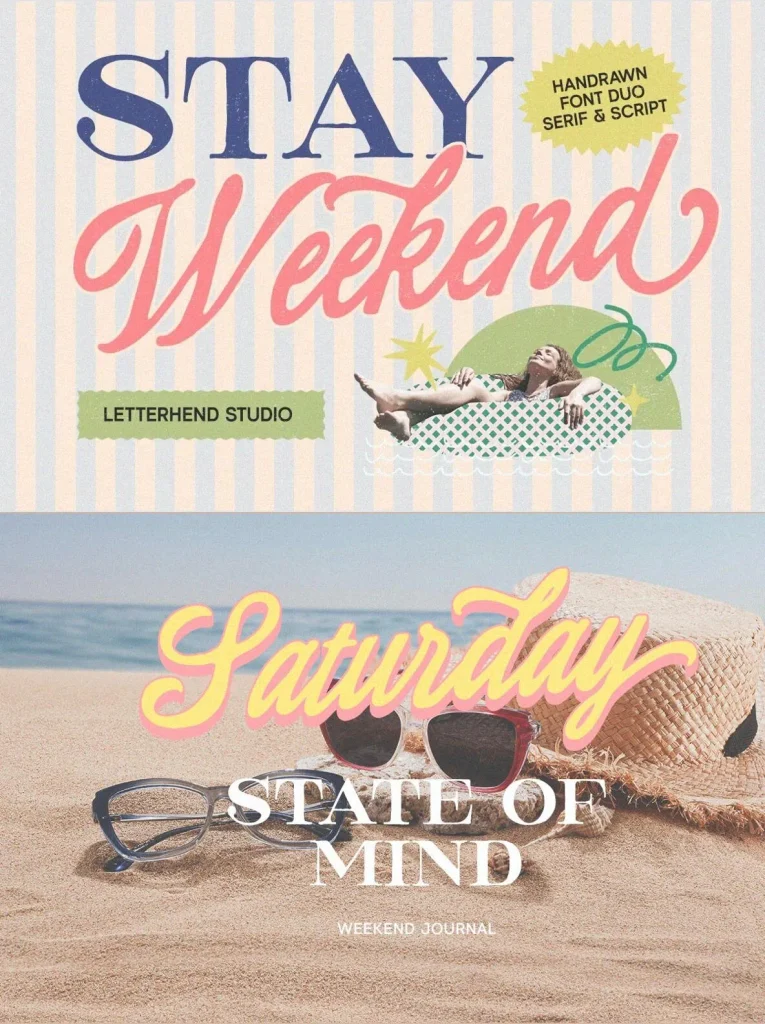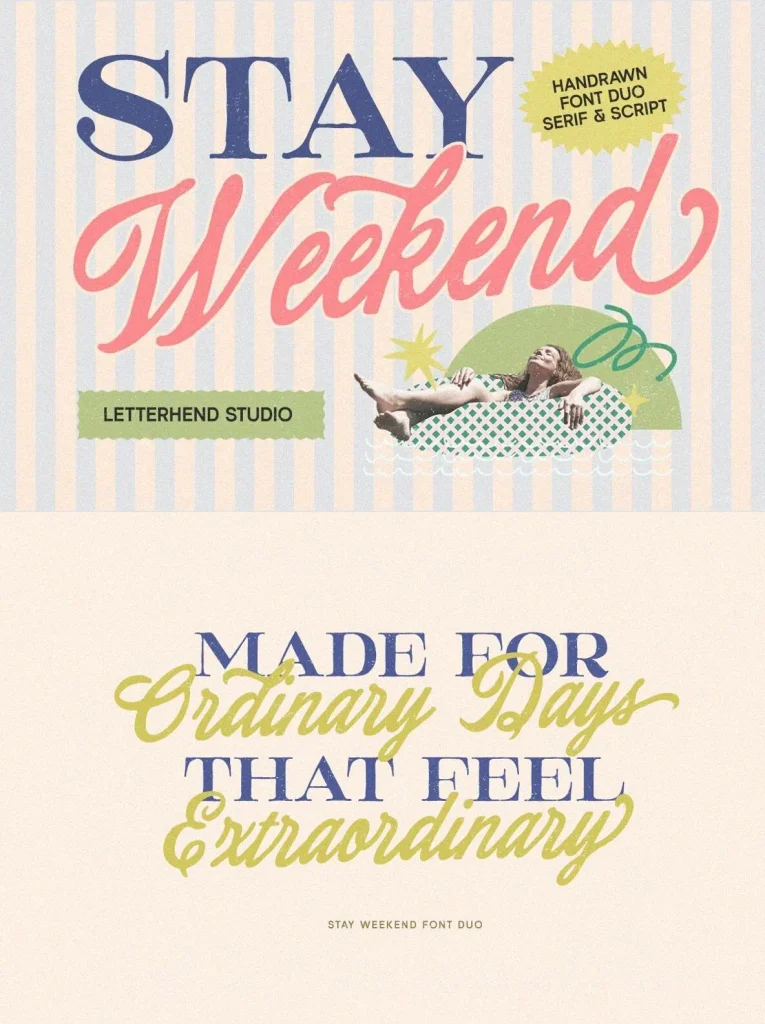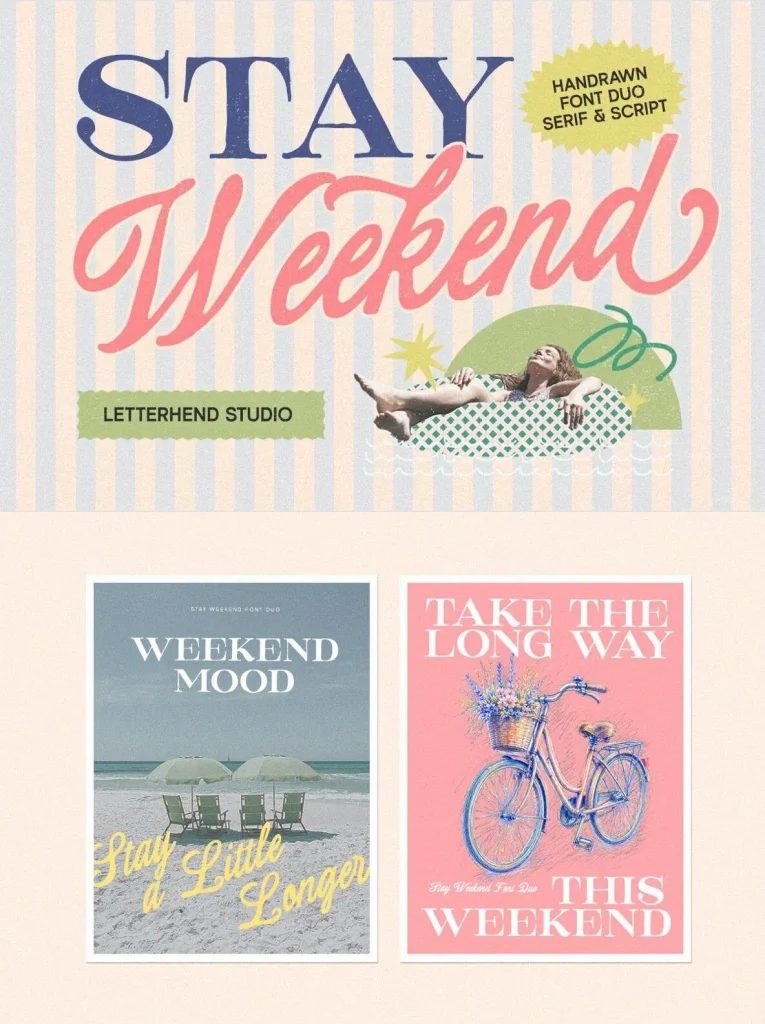
Stay Weekend — Serif With Slow Charm
Weekends deserve to linger a little longer, and Stay Weekend captures that feeling in every letter. This expressive serif and script duo blends refined elegance with an easy handwritten rhythm, giving headlines and logos a naturally welcoming personality.
Designed for typography that feels warm, graceful, and personal, Stay Weekend suits branding, editorial titles, packaging, invitations, and visual identities that need a softer tone. Its alternate characters and multilingual support make it practical for polished layouts, while PUA encoding helps keep special characters accessible in compatible design software.